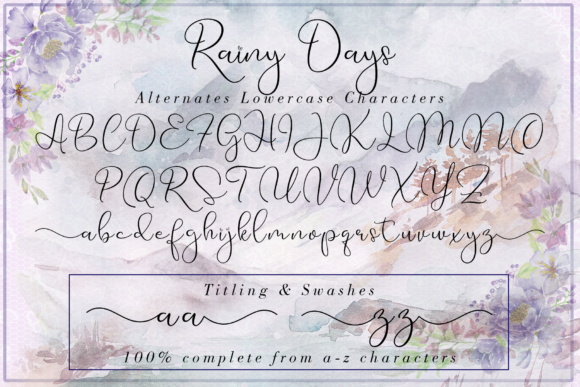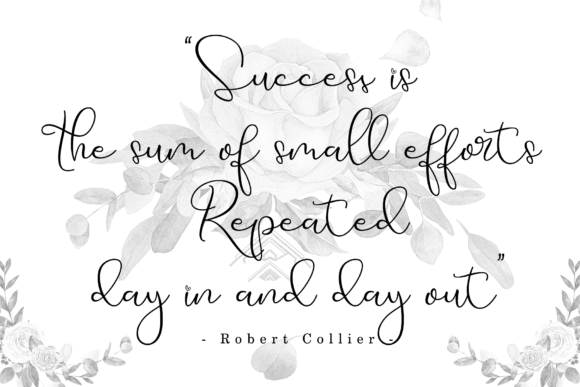
About Rainy Days Font
Rainy Days is inspired by classic typography and bring its own unique style to any design project. Fall in love with its authentic feel and use it to create gorgeous wedding invitations, beautiful stationary art, eye-catching social media posts, and cute greeting cards.